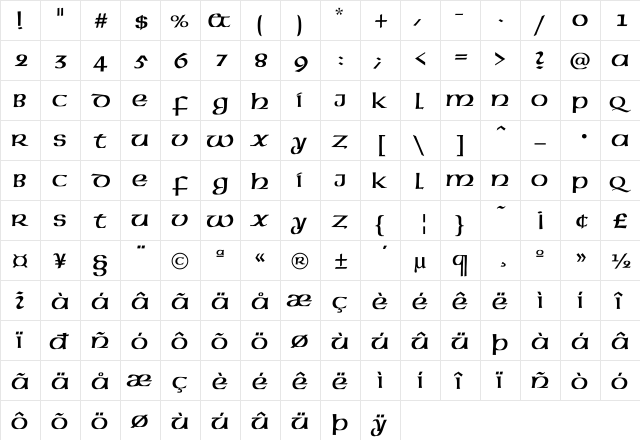
Colonial-Uncial Regular
Design Context for Colonial-Uncial Typeface
Colonial-Uncial takes a measured approach to typography — its balanced proportions and neutral character make it a reliable workhorse for both digital and print work.